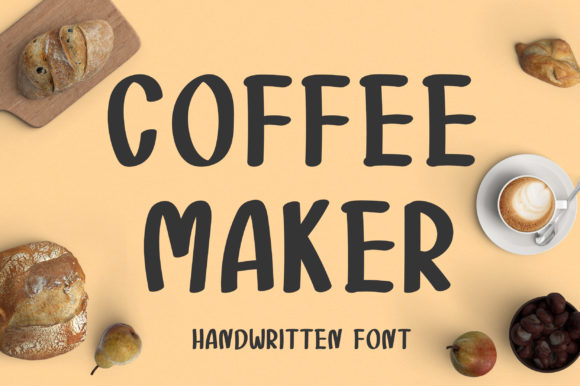
Coffee Maker Font: Elevating Small Business Branding
Standing in the studio last Tuesday, staring at a stack of plain kraft paper tags for a new artisanal candle line, I realized the packaging felt expensive but the typography felt cold. As a creative consultant helping small businesses refine their visual identity, I often see this disconnect where premium products are undermined by generic typefaces. That afternoon, I tested Coffee Maker, a cute and casual handwritten font with an incredibly friendly feel that immediately transformed those sterile tags into something warm and inviting. When selecting Fonts for tactile products like candles, skincare, or baked goods, the goal is to bridge the gap between professional polish and human connection, and this specific Script Handwritten style achieved exactly that balance without looking messy or amateur.
Coffee Maker for Product Packaging and Label Design
When applying Coffee Maker to physical product labels and packaging design, the font’s inherent warmth serves as a powerful tool for establishing brand personality on the shelf. In my recent project refreshing a boutique bakery’s cookie box branding, we needed a typeface that communicated "handmade" without sacrificing legibility at small sizes. This Script Handwritten category excels here because the letterforms retain distinct character even when scaled down for ingredient lists or side panels. Unlike rigid display fonts that can feel corporate, or overly ornate scripts that become illegible blurs on textured paper, Coffee Maker offers a sweet spot of readability and charm. For business owners designing their own packaging, this font works exceptionally well as a primary headline on front-of-pack labels, while pairing beautifully with a clean sans serif for the mandatory regulatory text. The key to successful packaging design with this typeface is utilizing its natural bounce to guide the eye across the label, making the unboxing experience feel personal rather than industrial.
Readability Tips for Small Business Labels
Using Coffee Maker for Social Media Graphics and Headings
Digital consistency is just as vital as physical packaging, and using Coffee Maker for social media graphics and website headings helps create a cohesive brand narrative across platforms. While reviewing assets for an online tea shop, I noticed their Instagram feed looked disjointed until we standardized their story highlights and post titles with this specific typeface. The beauty of this Script Handwritten style in a digital context is its ability to stop the scroll; it feels like a note from a friend rather than an advertisement. For content creators and e-commerce sellers, integrating this font into Canva templates or Photoshop overlays adds an instant layer of authenticity that stock photography alone cannot provide. However, it is crucial to remember that while Coffee Maker elevates visual interest, it should primarily serve as a display element for headlines and hooks. Body copy on mobile screens requires high x-heights and open counters, so pair this creative font with a modern sans serif to ensure your captions and blog posts remain accessible and easy to read during quick browsing sessions.
Coffee Maker for Wedding Invitations and Elegant Branding
Beyond retail products, Coffee Maker proves remarkably versatile for service-based businesses and special events, particularly when used for wedding invitations and elegant branding materials. I recently consulted for a floral designer who wanted her business cards and client proposal headers to reflect the organic, romantic nature of her arrangements without appearing stuffy. This font strikes a rare balance in the Fonts market: it is informal enough to feel approachable yet refined enough for luxury stationery. When designing invitations, the playful ligatures and natural variations in stroke width mimic the imperfections of real calligraphy, adding value to printed suites. For branding projects in the beauty, wellness, or coaching niches, this typeface signals empathy and care. It tells potential clients that there is a real person behind the business. When using it for formal stationery, consider pairing Coffee Maker with a classic serif font for the logistical details like dates and addresses; this combination grounds the whimsy of the script and ensures guests can easily find essential information while still feeling the emotional tone of the event.
Strategic Font Pairing for Professional Results
1. The Modern Minimalist: Pair Coffee Maker with a geometric sans serif (like Montserrat or Futura) to create a contemporary look suitable for tech-adjacent lifestyle brands or modern cafés.
2. The Heritage Classic: Combine this Script Handwritten font with a traditional serif (like Garamond or Playfair Display) to evoke nostalgia and trust, perfect for bakeries, bookshops, or antique dealers.
3. The Soft Organic: Match it with a rounded sans serif to amplify the friendly vibe for children’s products, pet brands, or eco-friendly cleaning lines.
4. The Editorial Contrast: Use Coffee Maker exclusively for pull quotes and accents alongside a strong editorial serif for magazines, blogs, or lookbooks to break up dense text blocks visually.